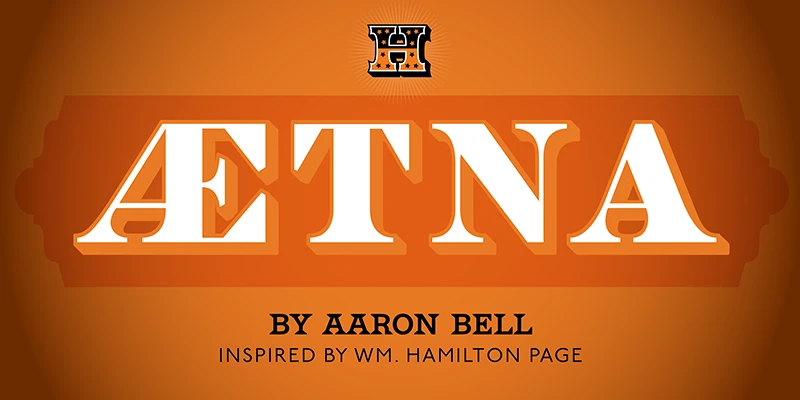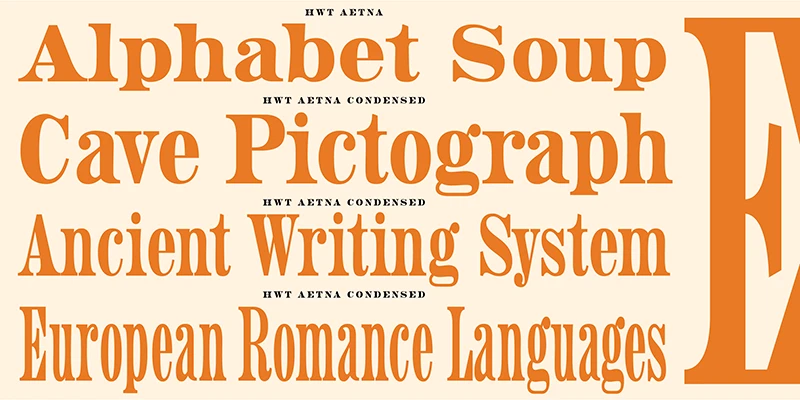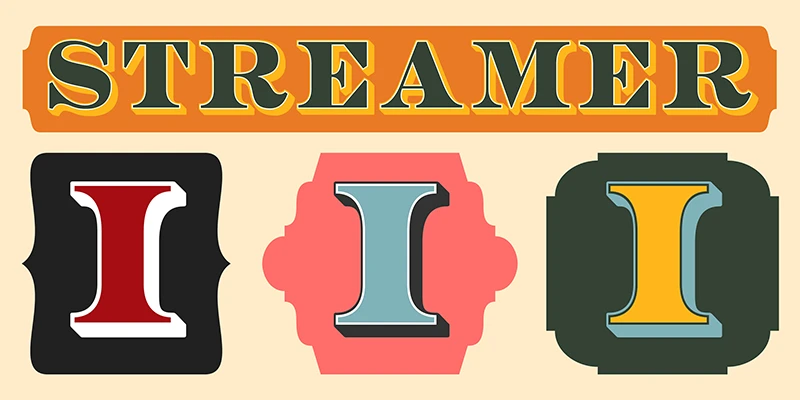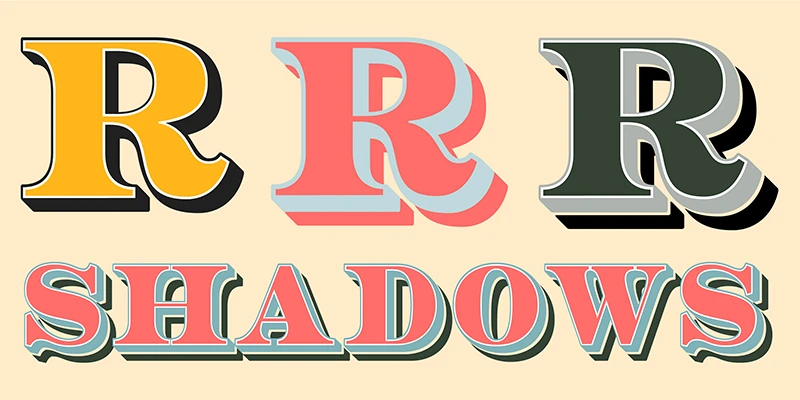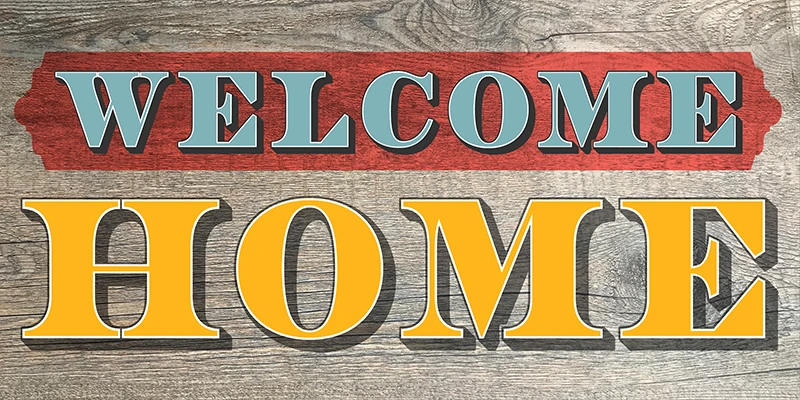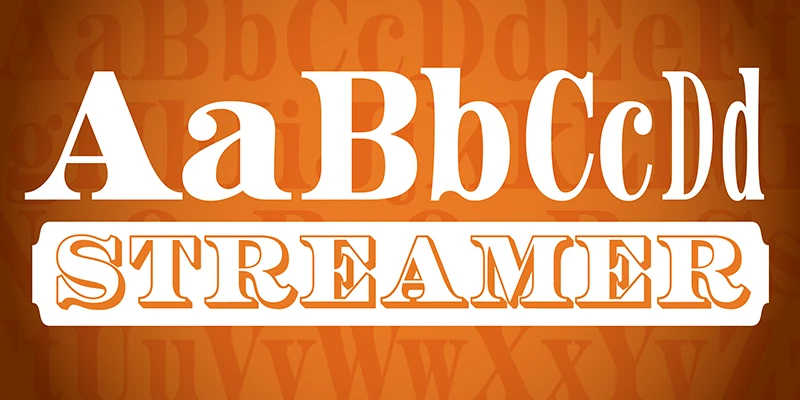
HWT Aetna is a revival of the sturdy Roman style of wood type most often called simply Aetna. This new digital version by Aaron Bell features four widths all based on those variations commonly offered by 19th Century wood type manufacturers. In addition, there is a four-layer all-caps version of Aetna based on the famous Wm. Page Chromatic Types. These allow designers to effortlessly create colorful chromatic streamer and shadow effects for their various projects.
Designed by Aaron Bell